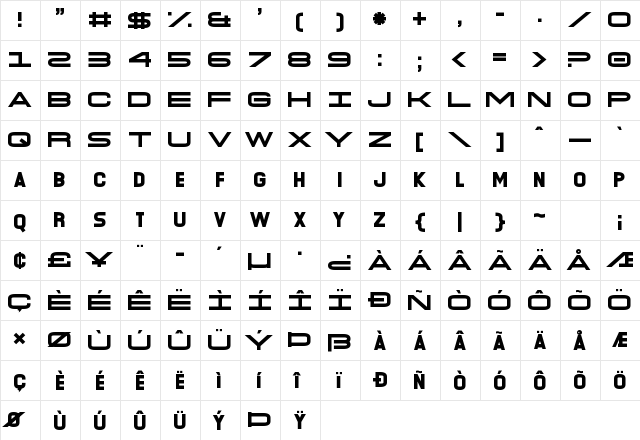
O.K. Retro Regular
Design Context for O.K. Retro Typeface
O.K. Retro has the warm character of retro typography — evoking diners, record sleeves, and the golden age of print advertising.
Font Pairing: Combine O.K. Retro with a simple slab or neutral sans — period-accurate companions reinforce the vintage feel without competing for attention.
Pro Tip: Use O.K. Retro for headlines and pull quotes rather than body copy — its personality is best appreciated in short, focused bursts.